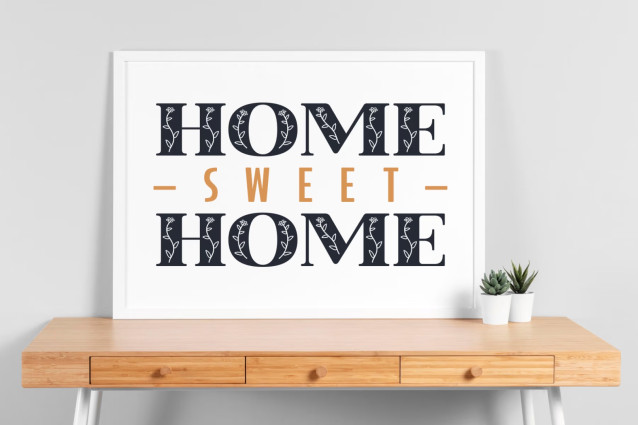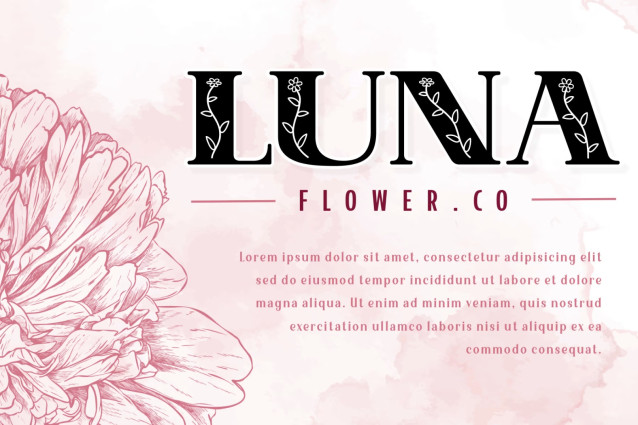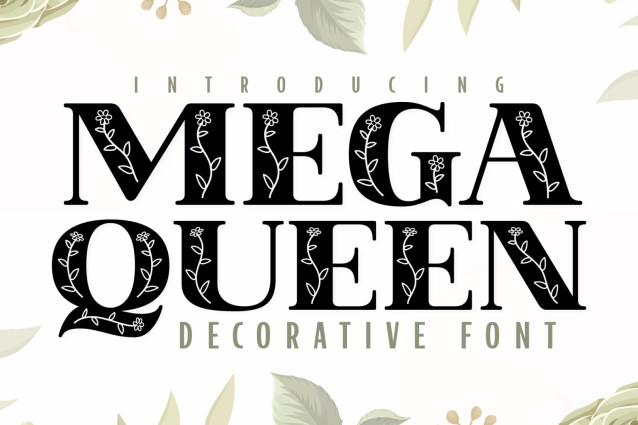
Mega Queen Font
Mega Queen is a naturally elegant and clear decorative font. Use this font for your designs and take your upcoming projects to the next level!